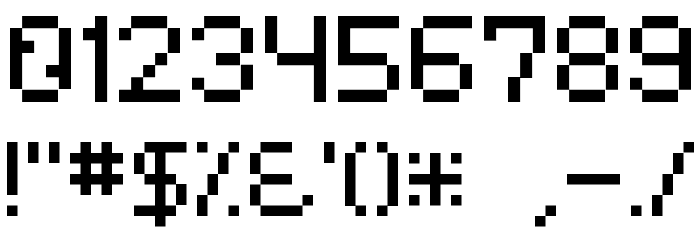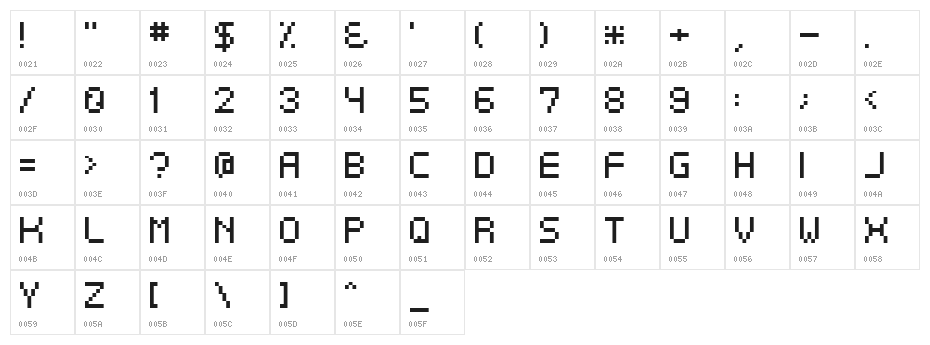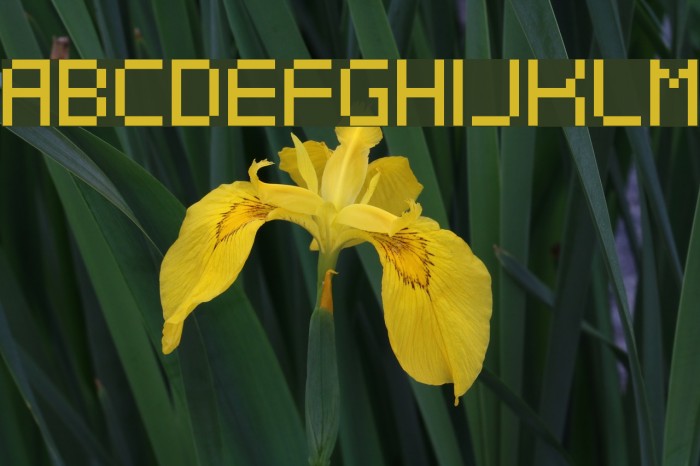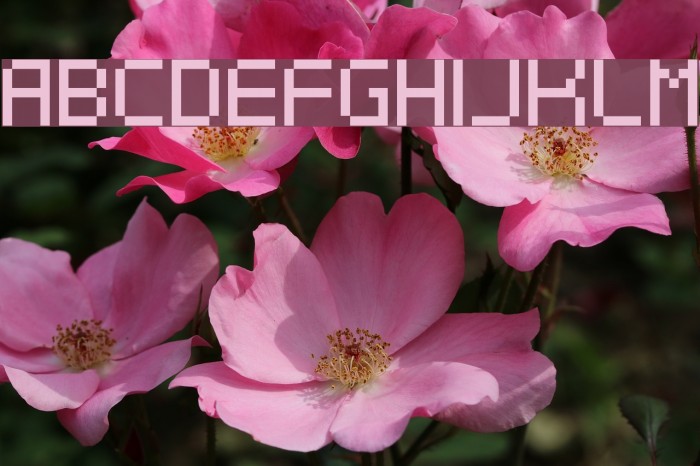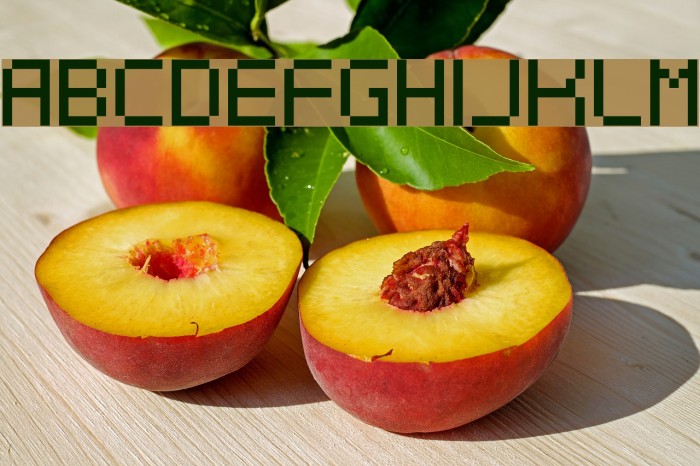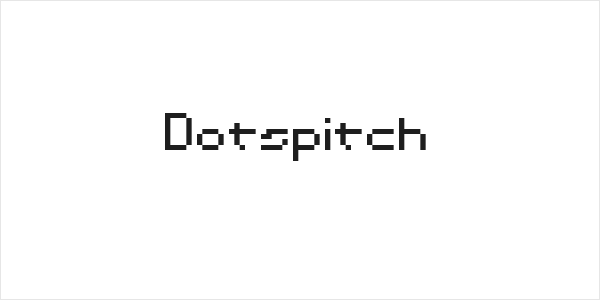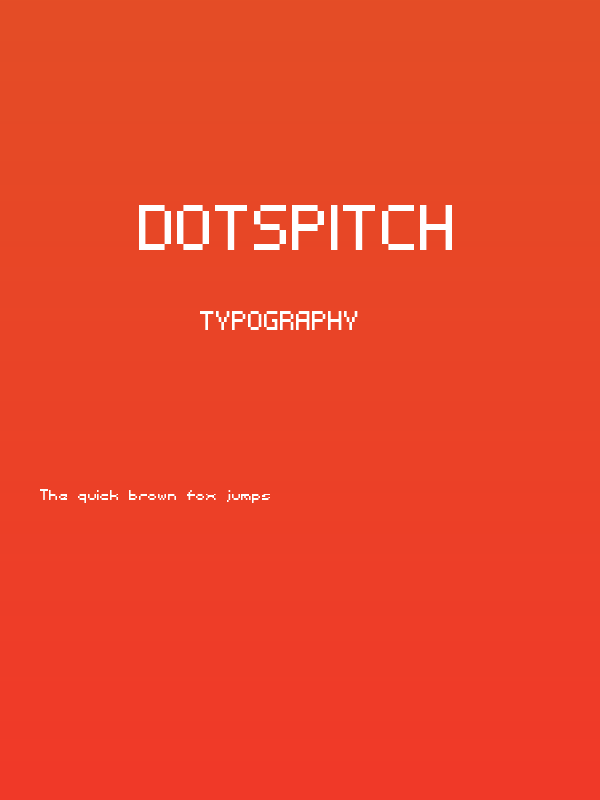
Dotspitch Font
Dotspitch Description
This font features a pixelated, blocky design reminiscent of early digital displays and video games. Each character is composed of a grid-like structure, giving it a distinctly retro and digital aesthetic. The uppercase and lowercase letters maintain a uniform height, contributing to a cohesive and structured appearance. Numbers and special characters follow the same pixelated style, ensuring consistency across all glyphs. The font's simplicity and geometric form make it highly legible, even at smaller sizes, while its nostalgic feel evokes a sense of classic arcade games and early computer graphics.
| Use Case | Headlines, Logos, Digital Art |
| Proposed Projects | Ideal for projects that require a retro or digital theme, such as video game design, tech-themed posters, or digital art projects. |